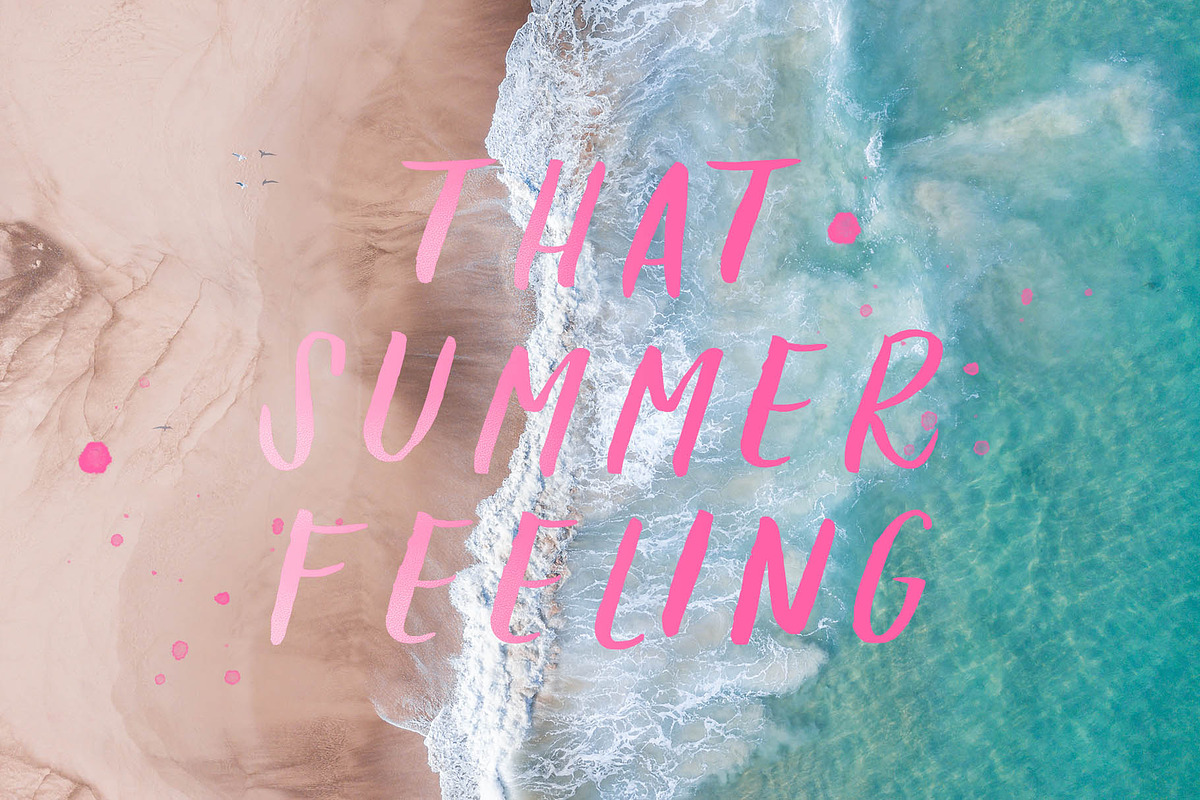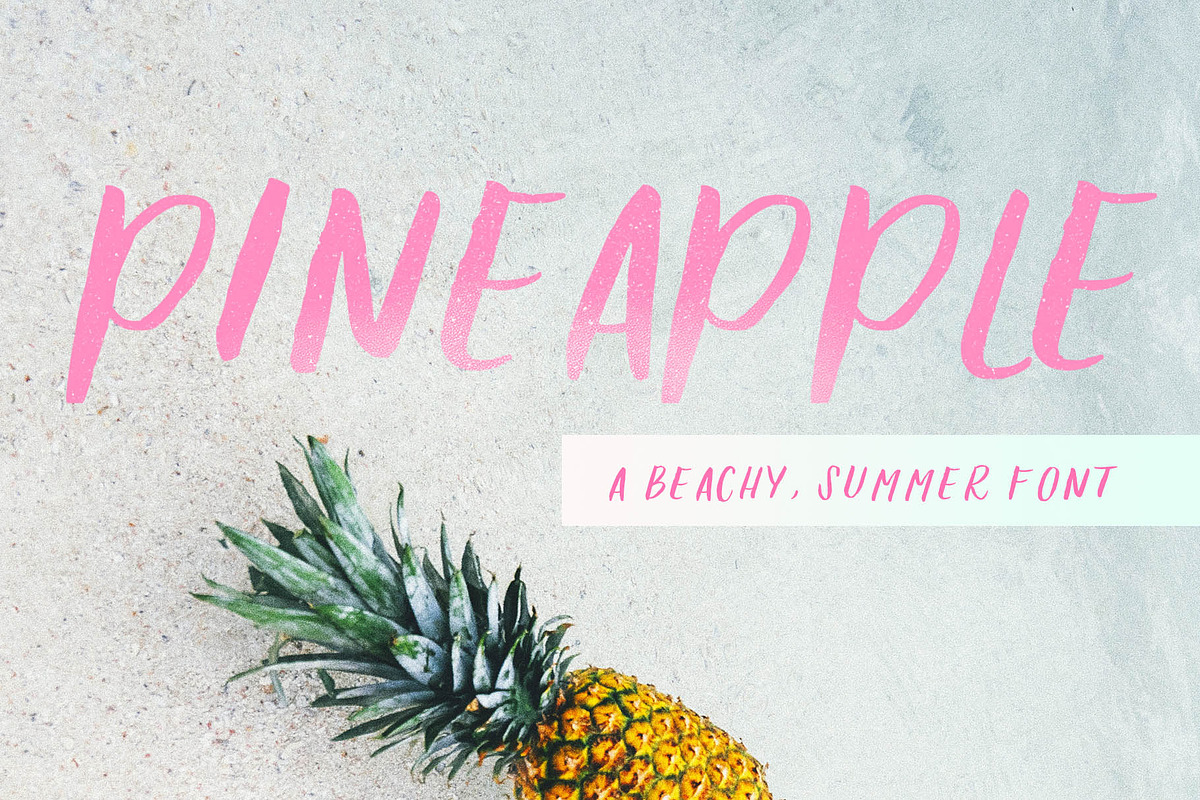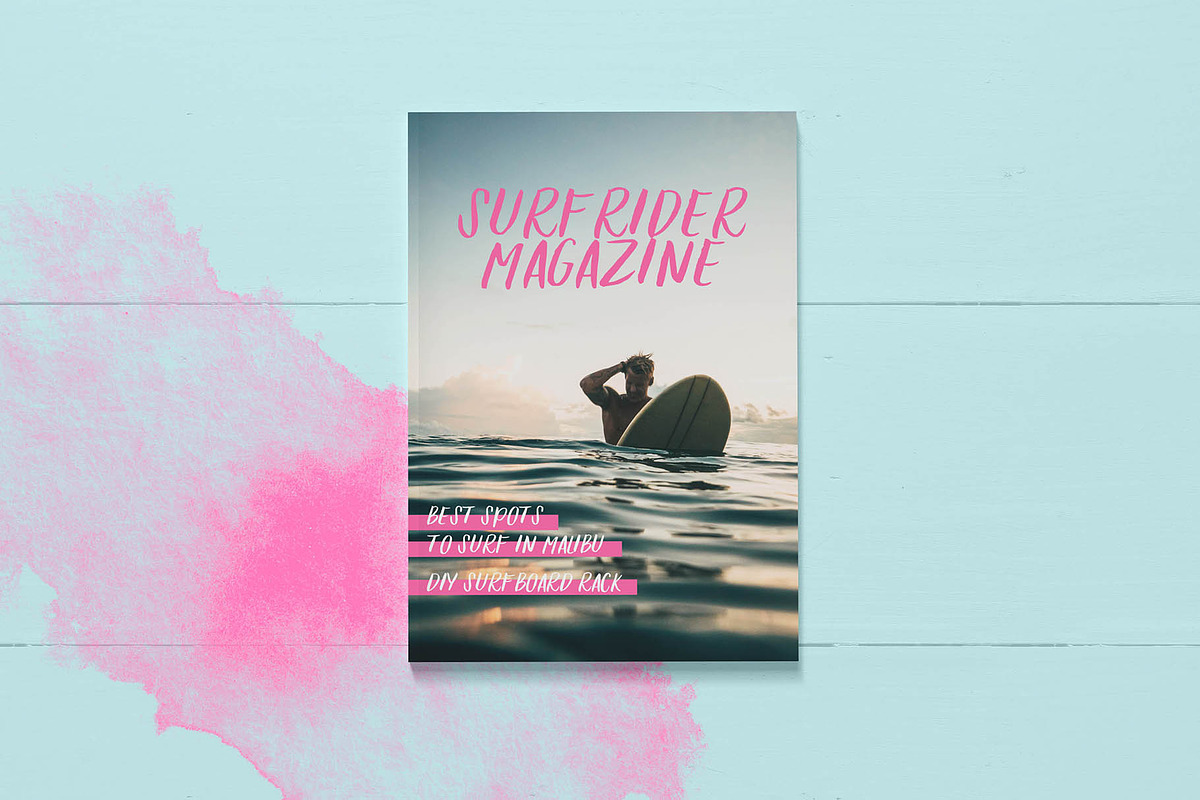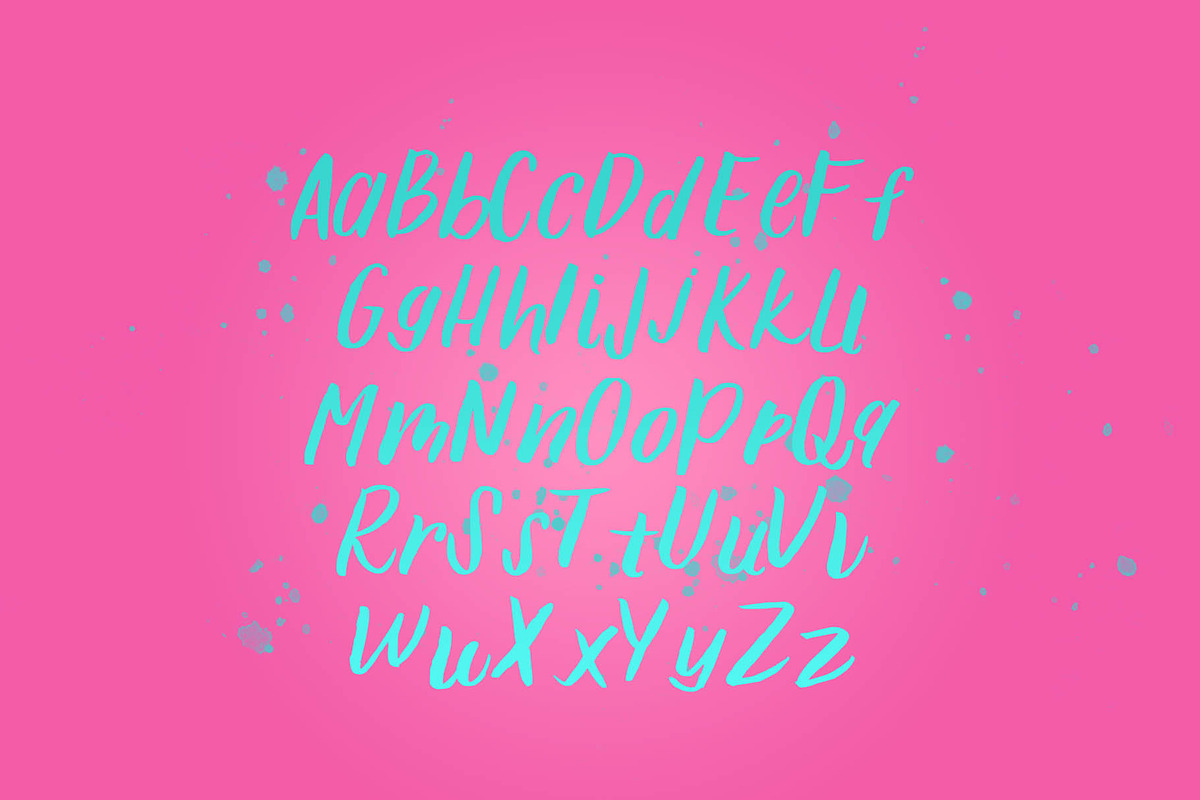
Pineapple Font
Say Hello to Pineapple! This quirky, hand written font gives you all the summer vibes. Bold and eye catching, this font is perfect for that carefree feeling you want to invoke in your design.
Pineapple Font by Wild Akers fits naturally into Branding, posters, packaging, typography.